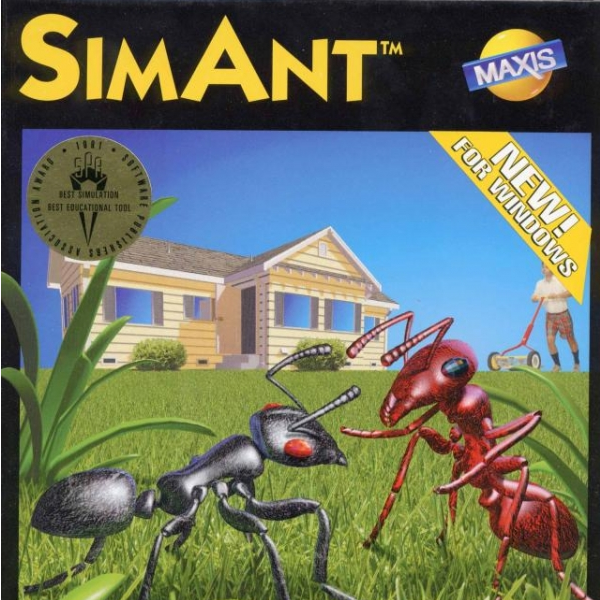
Fonts in UseSimAnt is a simulation video game where players control an ant colony, managing resources and defending against threats. It was developed by Maxis and released in 1991.
The font used for the game title on the box art is probably ITC Kabel Bold, a geometric sans designed by Rudolf Koch. More details about the font are available here.